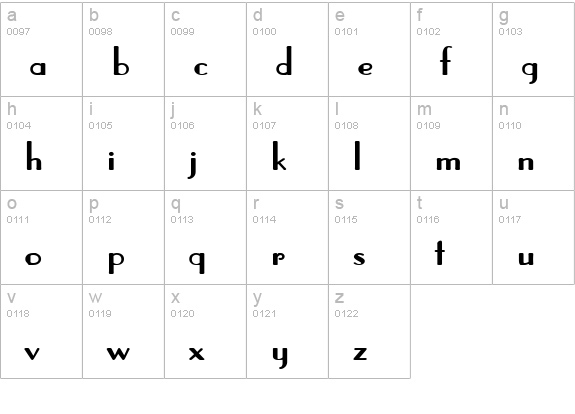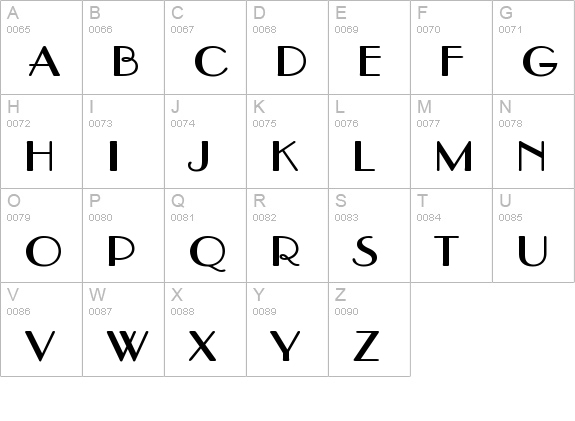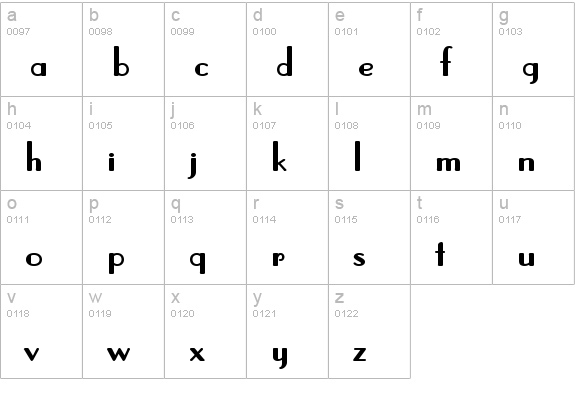
Paris Wide Bold Font Details
Paris Wide Bold is a strong, high-contrast, extended-width variant in the Paris typeface family \xE2\x80\x94 well suited to headlines, attention-grabbing titles, and strong calls-to-action.
Paris Wide Bold font is a striking display font that effortlessly commands attention with its bold and wide letterforms. With its strong and confident appearance, this font is perfect for making a bold statement in any design project. Whether you're creating eye-catching headlines, attention-grabbing logos, or impactful posters, Paris Wide Bold font will ensure that your message is delivered loud and clear. Featuring a clean and modern aesthetic, Paris Wide Bold font seamlessly blends elegance with a touch of playfulness. The wide letterforms add a unique twist to traditional bold fonts, giving your designs a fresh and contemporary look. The thick strokes and well-defined curves of each letter create a sense of stability and strength, making this font an excellent choice for conveying a sense of authority and reliability. What sets Paris Wide Bold font apart is not just its exceptional design, but also its availability. This font is freely available to download at FontsMarket.com, allowing designers of all levels to access this versatile and impactful typeface. Whether you're a professional designer looking to add a powerful font to your collection or a hobbyist seeking to elevate your personal projects, Paris Wide Bold font is just a few clicks away. In addition to being freely available, Paris Wide Bold font also offers a wide range of characters and language support, allowing you to create designs in multiple languages with ease. Its versatility makes it suitable for a variety of design projects, from branding and advertising to packaging and signage. So, why settle for ordinary fonts when you can make a bold statement with Paris Wide Bold font? Download it for free at FontsMarket.com and unleash your creativity today.